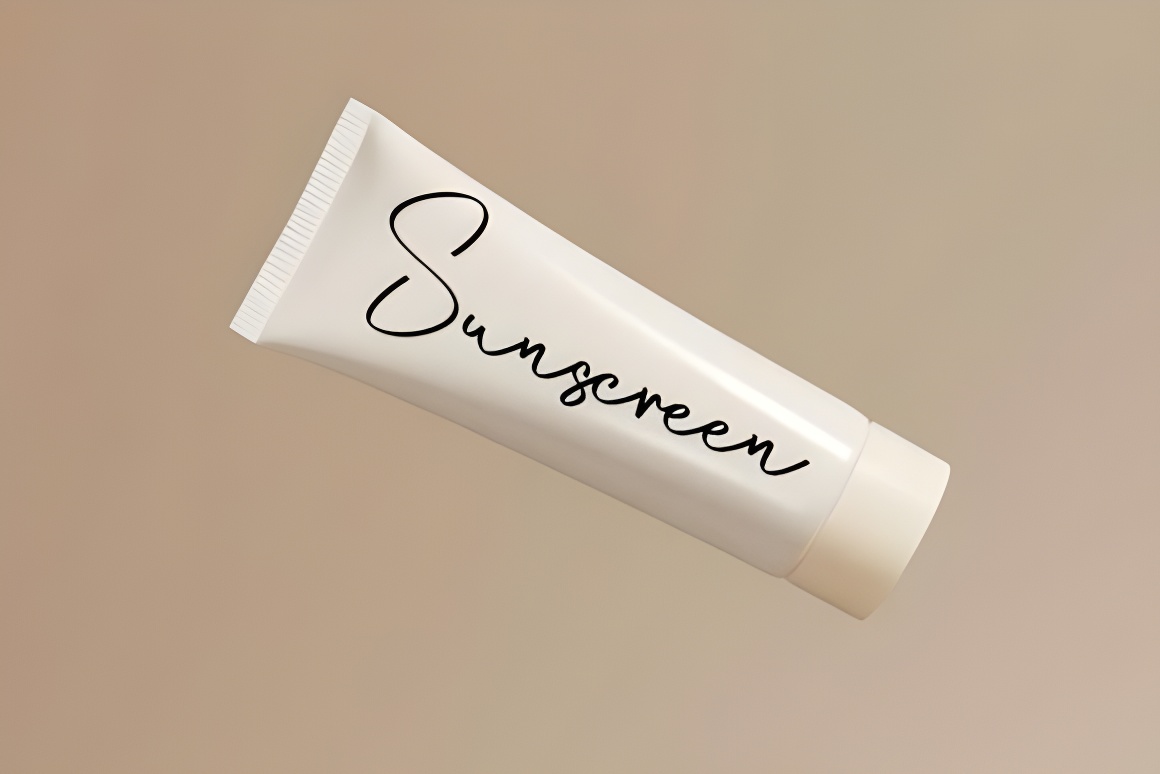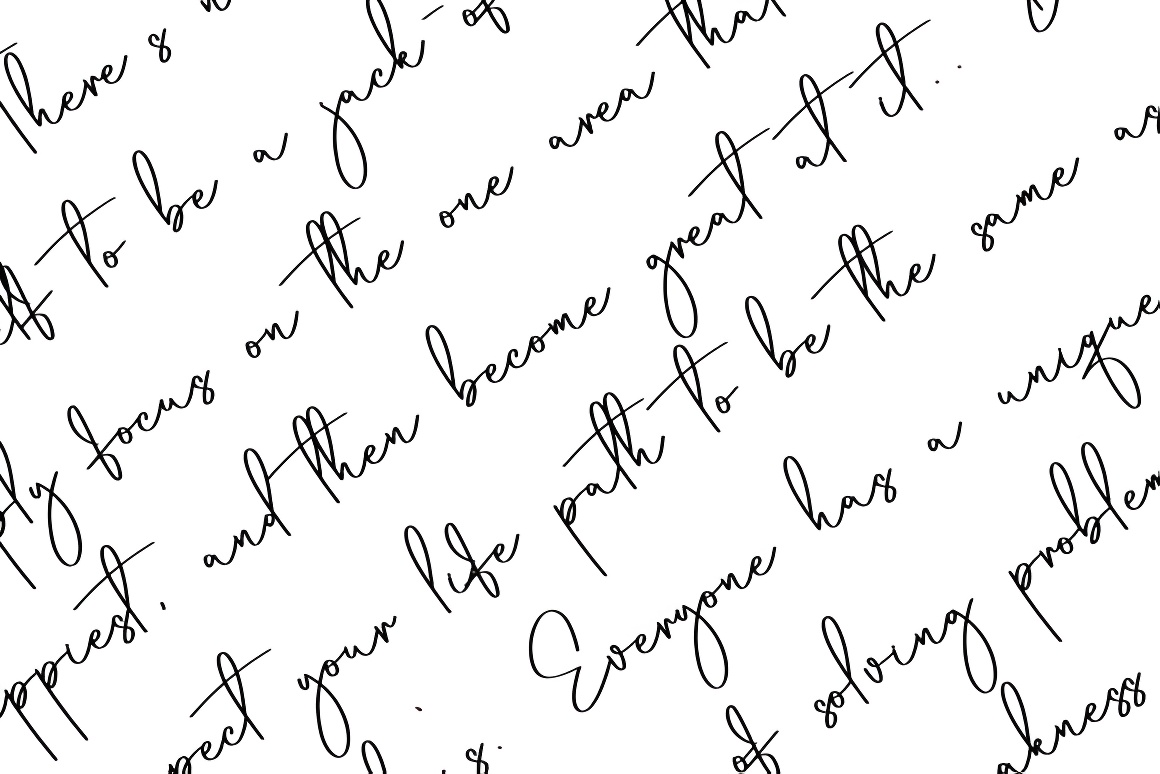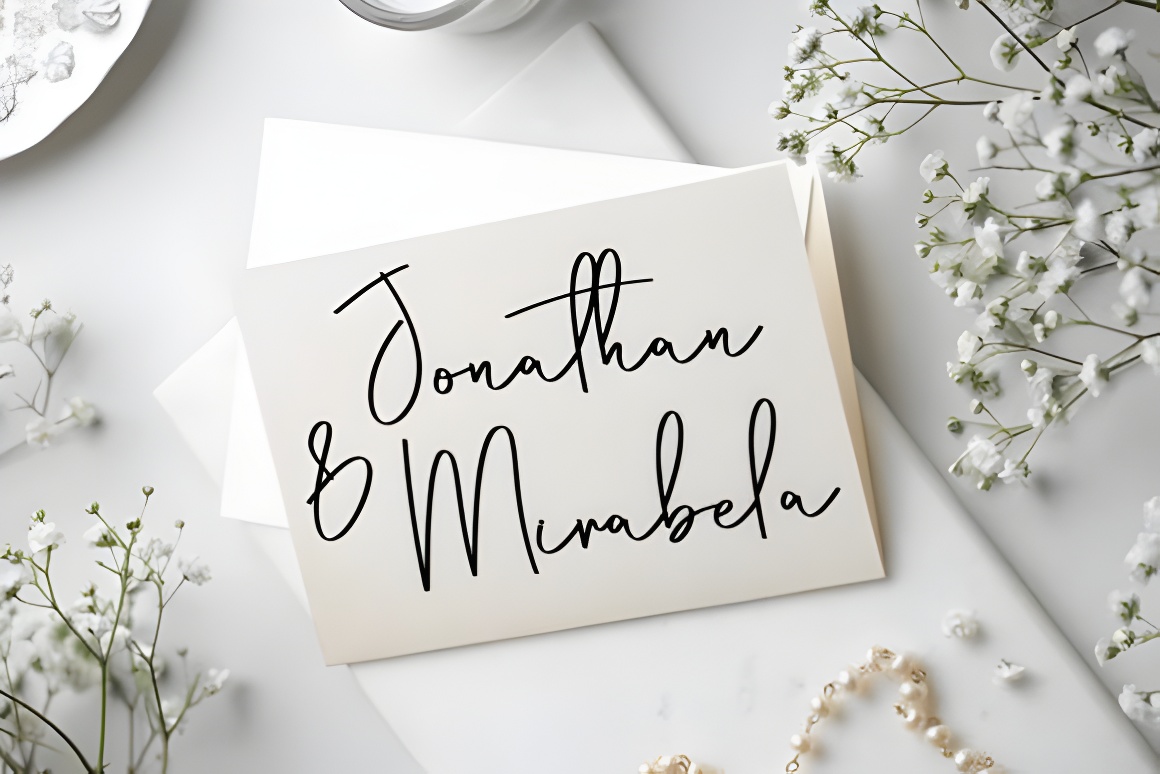
Enchanting Christmas Handwritten Script Font - Elegant Holiday Calligraphy
Elegant Christmas handwritten script font with graceful curves & refined ligatures. Perfect for wedding invitations, greeting cards, logos, and branding. Features PUA encoding, swashes, and alternate characters. Ideal for print/digital designs.